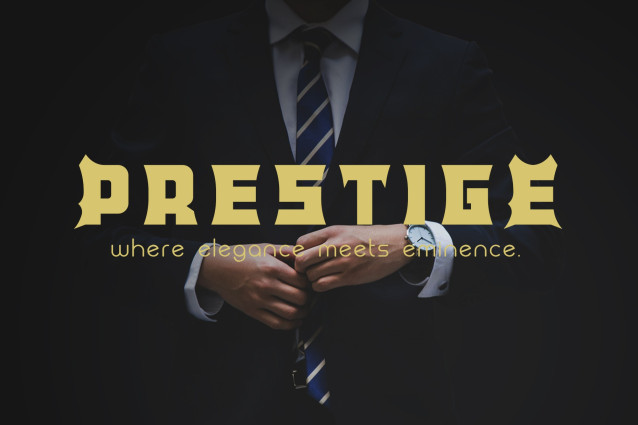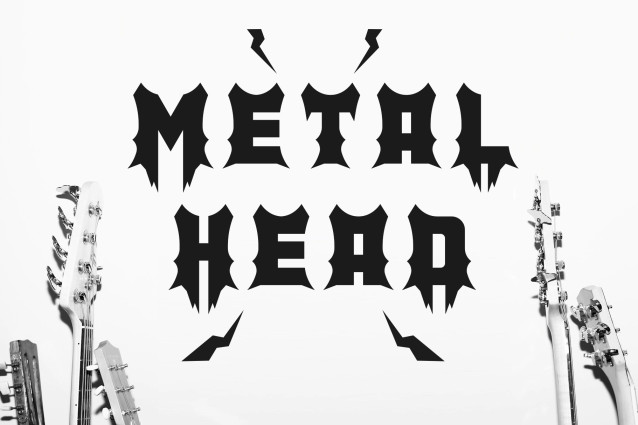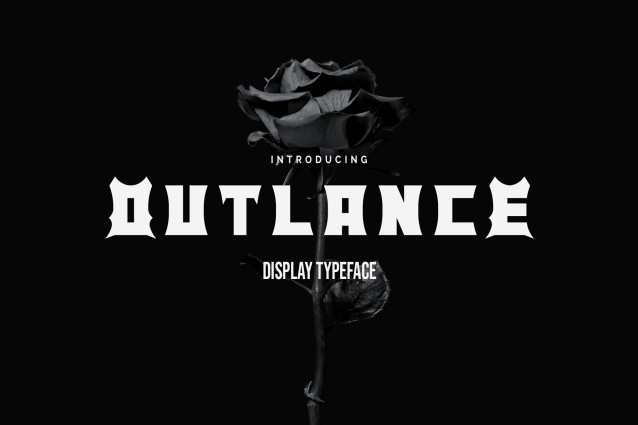
Outlance Display Font
Outlance Display Font is a bold display typeface that combines traditional Gothic influences with modern design elements. The font’s robust and angular shapes are reminiscent of medieval letterforms, but with a contemporary twist that gives it a powerful and edgy look. Each character features sharp, defined edges, making it ideal for headlines, logos, or any design that demands attention and a strong visual impact. The font’s dramatic appearance makes it particularly suited for dark, moody, or rebellious themes, adding a sense of authority and intensity to your designs.